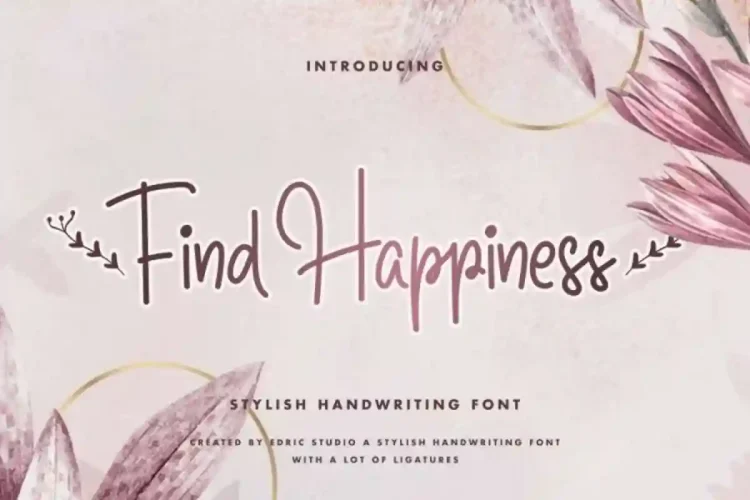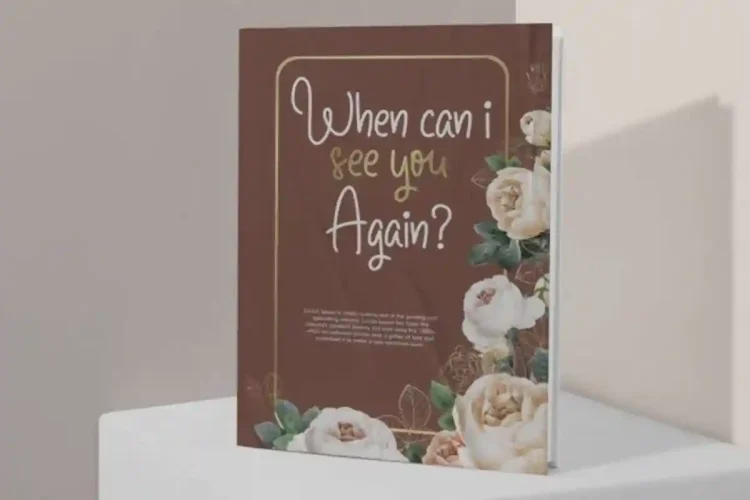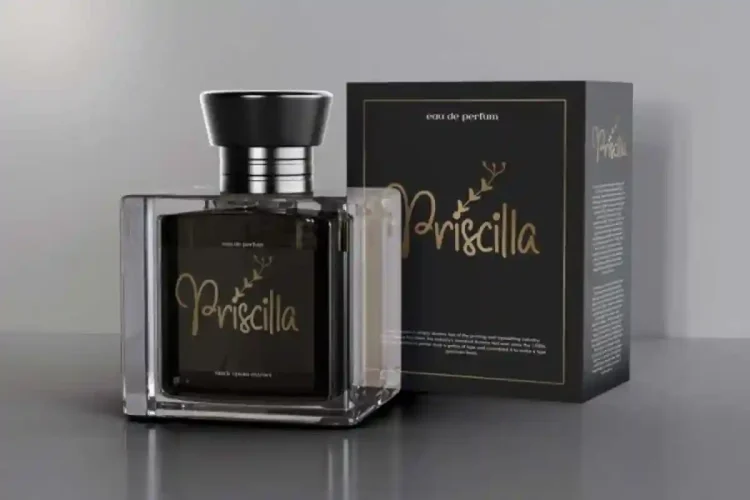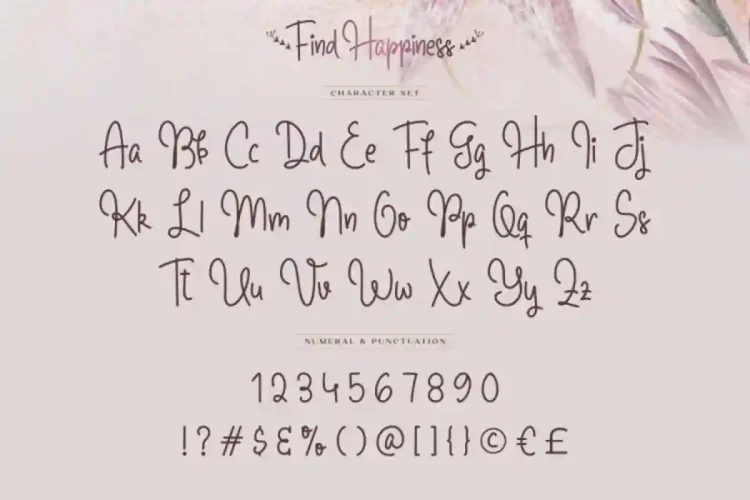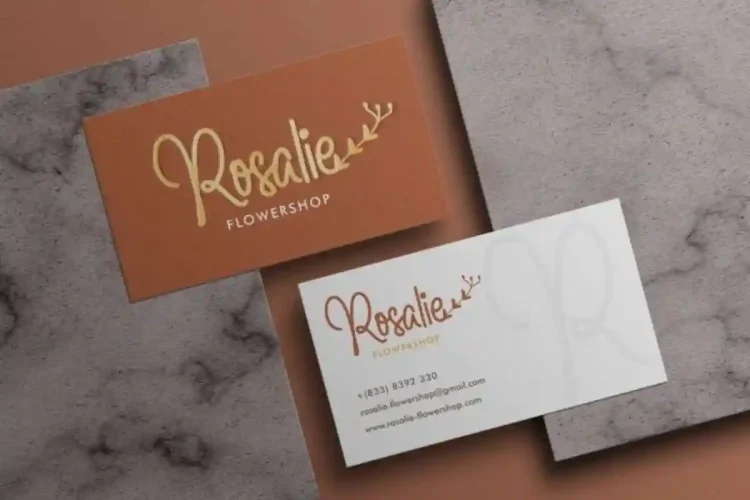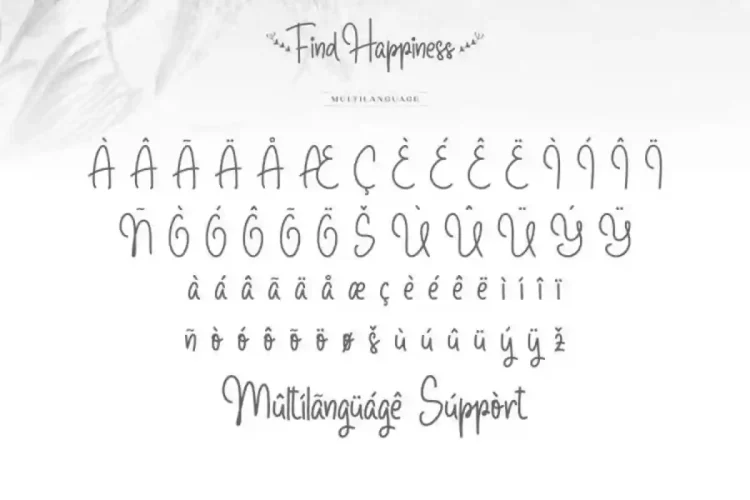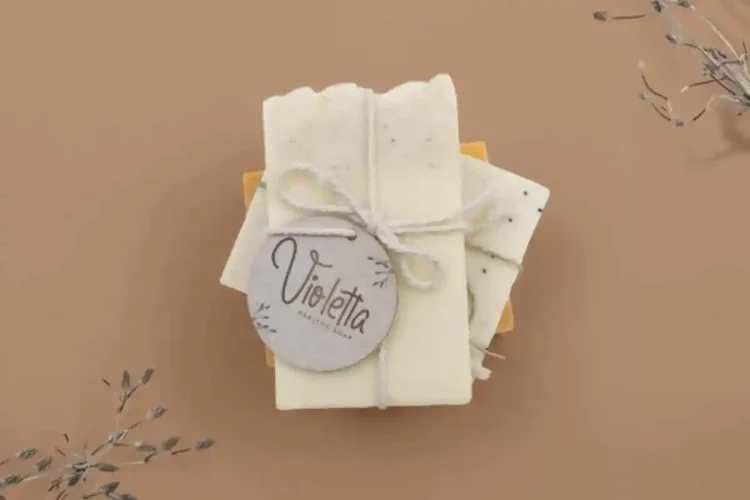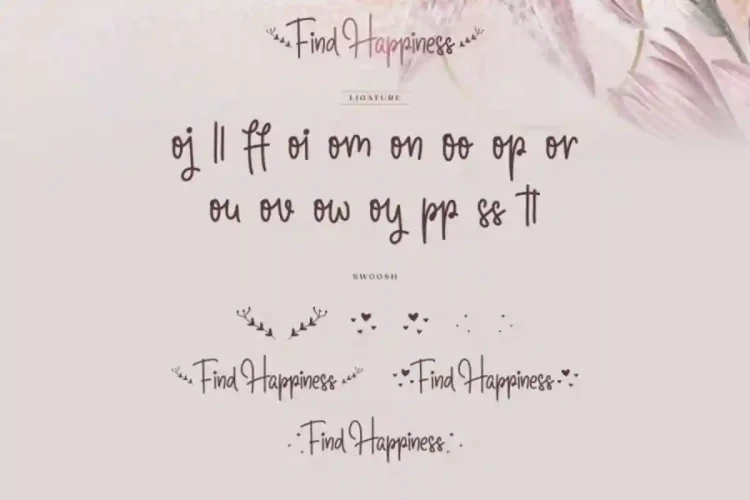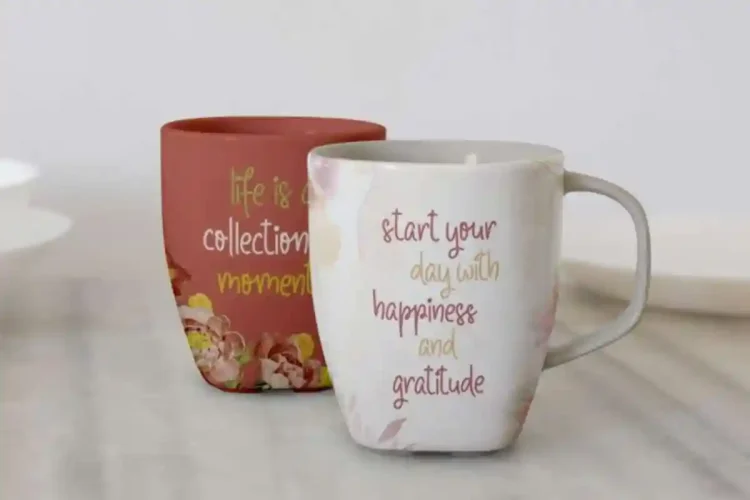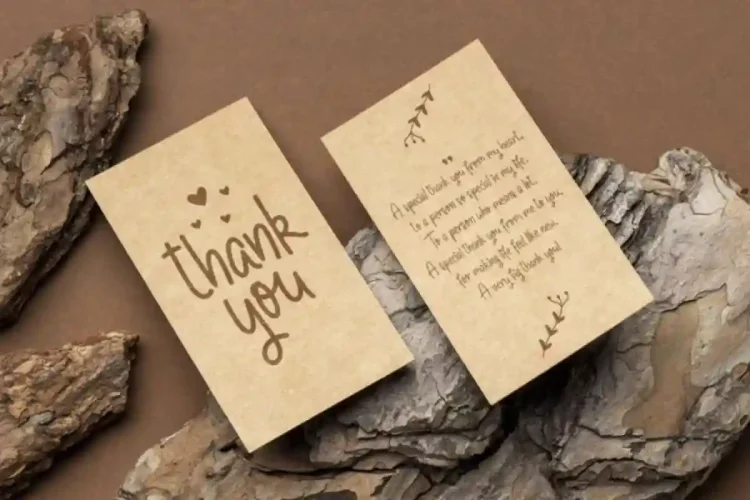
Find Happiness Handwritting Font is an original and simple monoline handwritten script font with a feel of happiness, handcrafted from our Studio here in Indonesia. It has a stunning characters set, perfectly managed with well spaced and kerning. Perfectly spaced and beautifully kerned, every letter flows smoothly, giving your designs a timeless and professional touch.
Find Happiness Handwritting Font comes complete with uppercase and lowercase letters, numerals, punctuation, ligatures, swooshes, and multilingual support. The font will be great for any projects (with extended license) including: billboard, business card, invitation, label, logos, mug custom, product packaging, quotes, signage, stationery, title etc. Almost all industries will be match for this typeface: architect, creative artist, events, fashion, florist and gardening, musician, real estate, travel and resort, wedding, writers, etc.